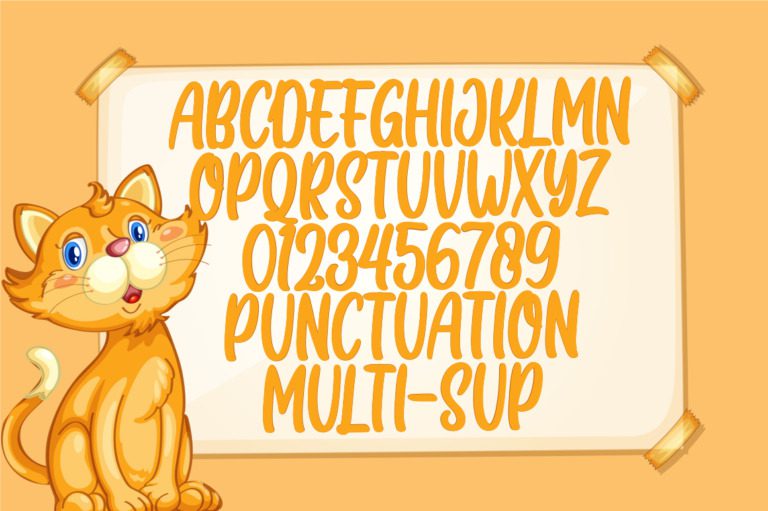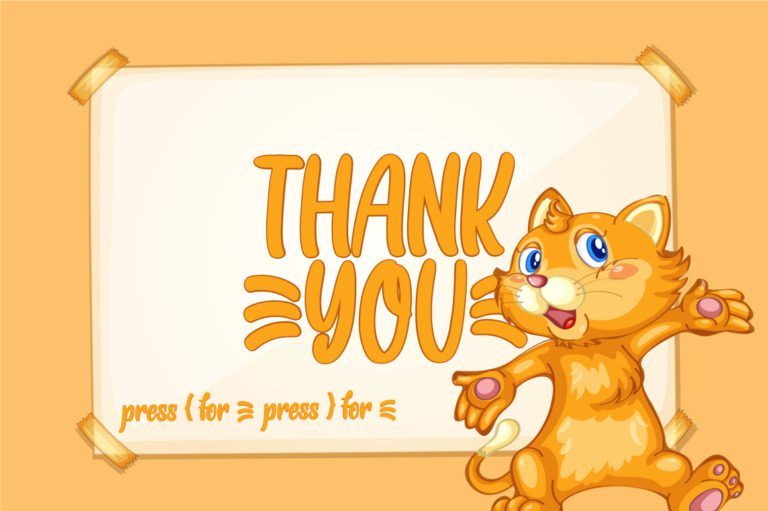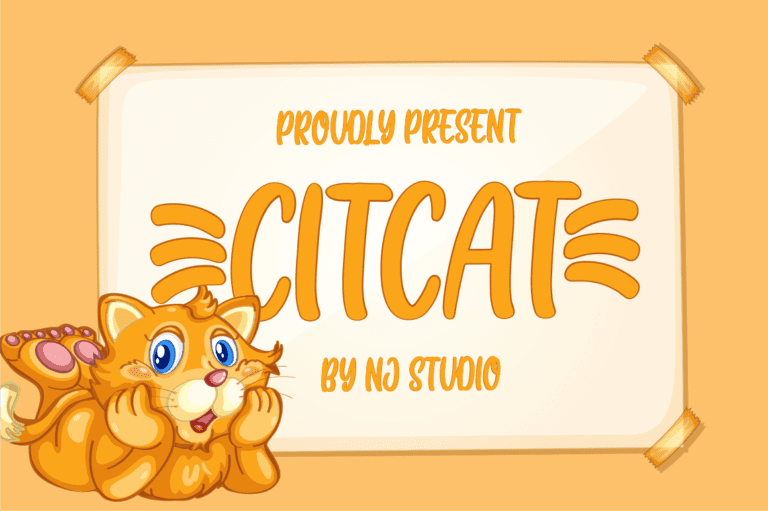
Citcat Font
Citcat Font is a playful and handwritten typeface with a casual and informal style. Its uneven strokes and organic shapes create a unique and expressive feel. The font is well-suited for projects that require a personal and friendly touch, such as social media posts, invitations, and branding for creative businesses.